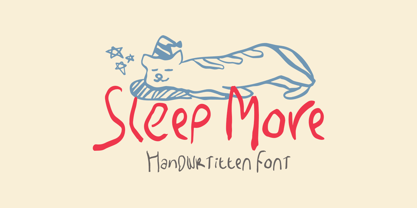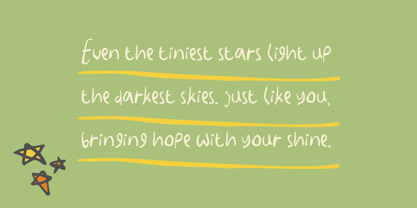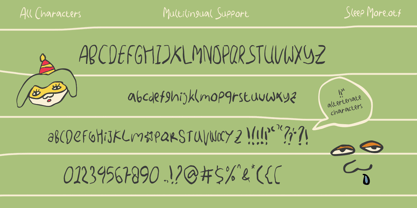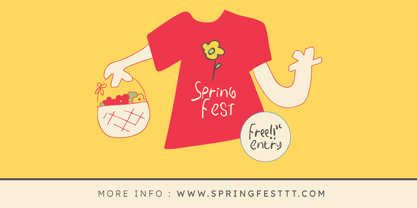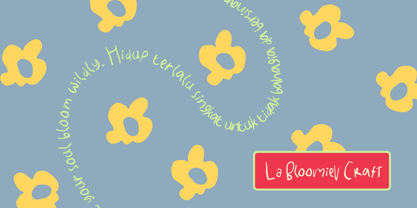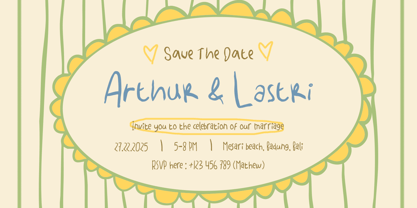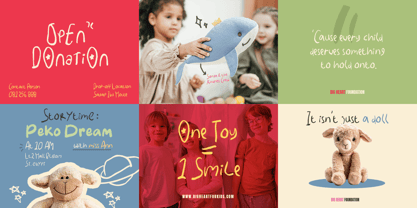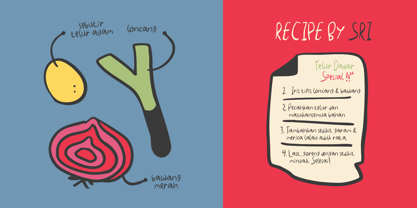
SL Sleep More
by Sloulyfe Studio
The SL Sleep More Font Family was designed by Amelia Dian Isnaini and published by Sloulyfe Studio. SL Sleep More contains 1 styles. More about this family
Once upon a nap... there was a font called Sleep More — soft as a pillow and sweet as a dream! With its playful handwritten strokes, this font brings bedtime magic to life. Whether you're crafting a storybook, making sleepover invitations, or designing cute labels, Sleep More makes everything feel warm, calm, and wonderfully whimsical.
Features :Uppercase & lowercase, Numbers and punctuation, Alternates or Ligatures, Multilingual support & PUA encoded
Designers: Amelia Dian Isnaini
Foundry: Sloulyfe Studio